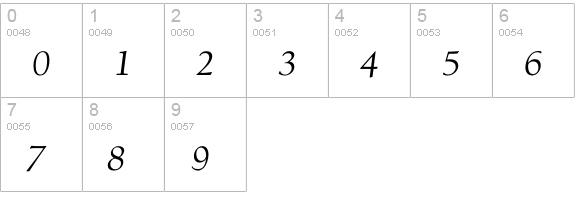
GoudyVillageL-Italic is a distinctive, italic variant in the GoudyVillageL typeface family \xE2\x80\x94 well suited to design and typography projects.
GoudyVillageL-Italic is a beautifully crafted font that exudes elegance and sophistication. Its delicate italic design adds a touch of refinement to any project, making it perfect for invitations, branding, and much more. With its classic yet modern appearance, GoudyVillageL-Italic is sure to make a lasting impression. The best part? This exquisite font is available for free download at FontsMarket.com. Embrace the timeless charm of GoudyVillageL-Italic and elevate your designs with its graceful curves and sophisticated style. Download it today and add a touch of class to your creative projects!